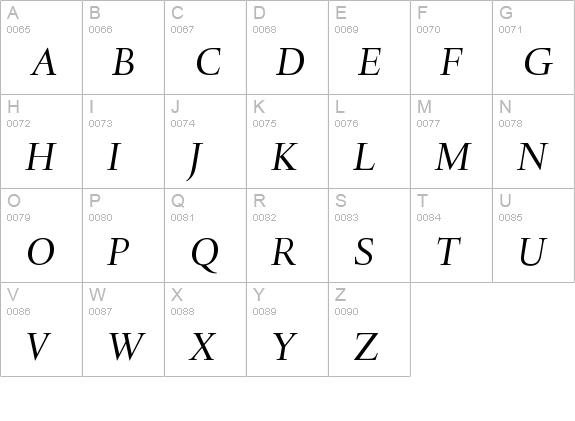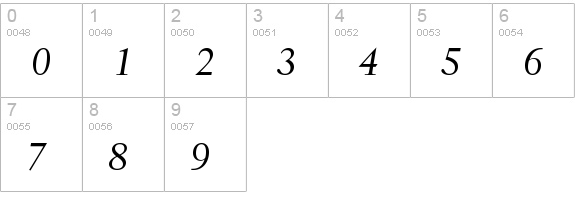
DTLHaarlemmerD-Italic is a distinctive, italic variant in the DTLHaarlemmerD typeface family \xE2\x80\x94 well suited to design and typography projects.
DTLHaarlemmerD-Italic font is a modern and elegant typeface that exudes sophistication and style. Its sleek design and unique italicized form make it perfect for adding a touch of class to any design project. The flowing curves and sharp angles of this font create a dynamic and eye-catching look that is sure to impress. What sets DTLHaarlemmerD-Italic font apart is that it is available for free download at FontsMarket.com. This means that you can easily access this high-quality font without any cost, making it a valuable resource for designers, creatives, and anyone looking to elevate their projects with a touch of elegance. Whether you're working on a branding project, a website design, or a print advertisement, DTLHaarlemmerD-Italic font is sure to make a statement and leave a lasting impression. With its versatility and timeless appeal, this font is a must-have addition to your font collection. Download it for free today and elevate your design projects with the sophisticated charm of DTLHaarlemmerD-Italic font.